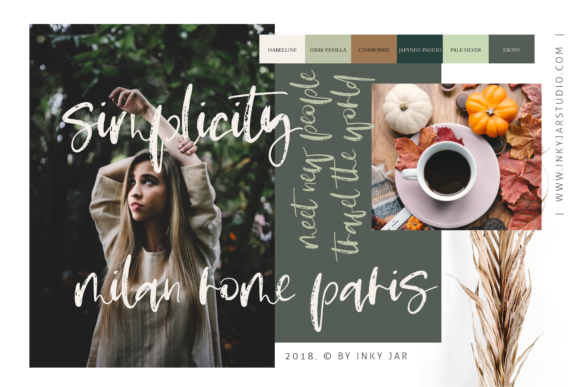
Pumpkin Spice Latte Script Font
About Pumpkin Spice Latte Script Font
The Pumpkin Spice Latte is a bold, messy brush font with an unique look which will make any design stand out.
It’s perfect for branding, Instagram posts or quotes, and it comes with amazing ligatures.